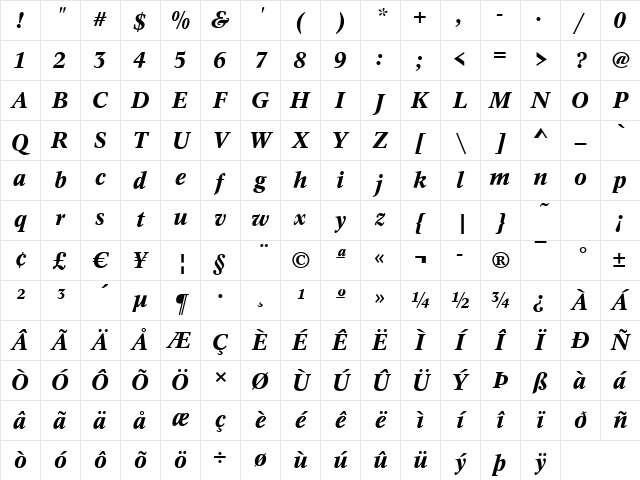
Concept MediumItalic
Style: MediumItalic
Concept Family
Concept MediumItalic
Complete Concept MediumItalic glyph index. Displaying only characters natively supported by Concept MediumItalic font.
Design Context for Concept
Concept is a composed and adaptable typeface that performs quietly and consistently across a wide range of design contexts. The slanted form adds forward momentum and visual energy.
Pro Tip: Use Concept for emphasis, pull quotes, and subheadings where its slanted energy can add rhythm to the layout.